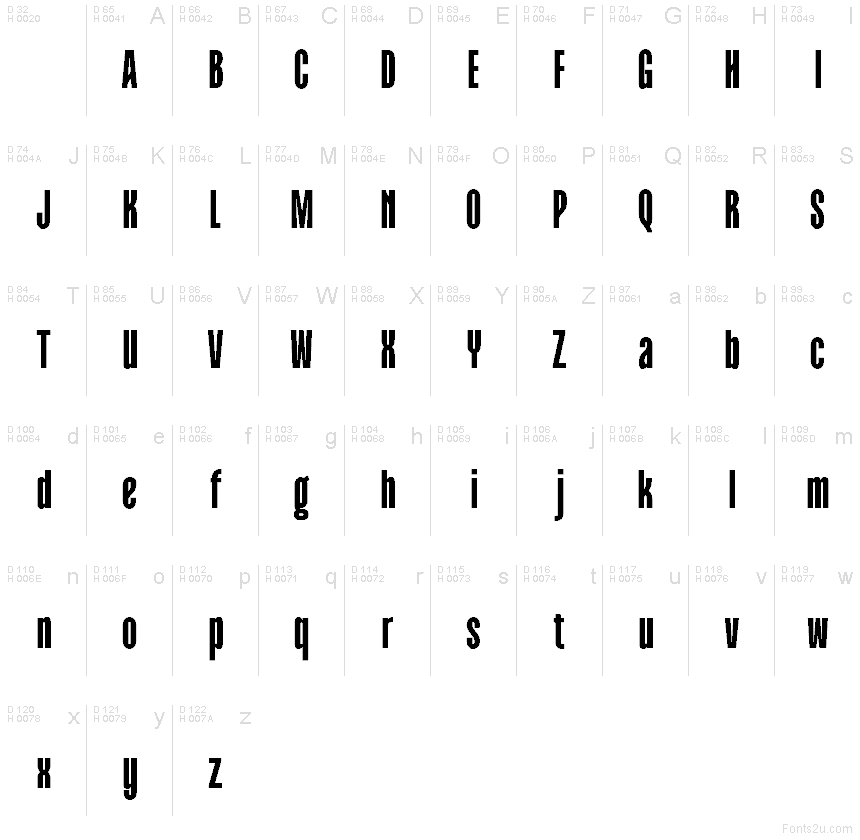
CS Brigham Regular Demo
CS Brigham font is a condensed sans serif with a strong presence of geometric style, drawing inspiration from modernist styles and fonts. Its robust structure brings in an industrial vibe to its letters which unleash harmony and form perfection while staying elegant and professional.